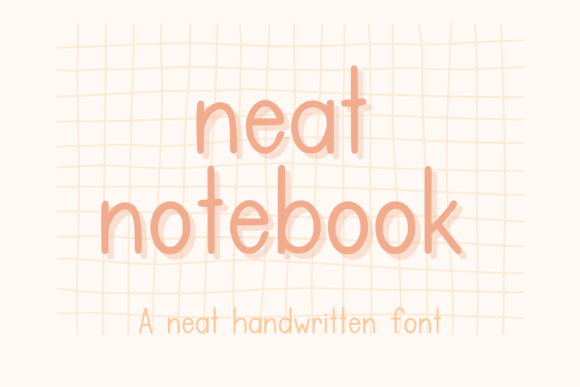
Introducing Neat Notebook: A Neat Handwritten Font for Cricut
Are you looking for a charming and cute addition to your creative projects? Look no further than Neat Notebook, a beautiful handwritten font designed specifically for Cricut users. This versatile font is compatible with a range of programs, including Cricut SVGs, Goodnotes, Procreate, and many more. In this article, we’ll explore the features and benefits of Neat Notebook, and how it can bring your creations to life.
Key Features of Neat Notebook Font
- Handwritten Style: Neat Notebook boasts a charming, handwritten aesthetic that’s perfect for a variety of creative projects.
- Endless Creative Possibilities: From crafting cards and scrapbooking to designing SVG files, Neat Notebook offers endless possibilities for your artistic endeavors.
5 Creative Ways to Use Neat Notebook Font
Neat Notebook is an incredibly versatile font that can be used in a variety of creative projects. Here are five ideas to get you started:
- Card Making: Add a personal touch to your greeting cards with Neat Notebook’s charming handwritten style.
- Scrapbooking: Use Neat Notebook to add journaling and titles to your scrapbook pages, creating a beautiful and cohesive look.
- SVG Design: Incorporate Neat Notebook into your SVG designs, such as custom signs, banners, and decals.
- Digital Planning: Use Neat Notebook in your digital planners and journals, created with Goodnotes or Procreate.
- Stationery Design: Create custom stationery, including letterheads, journals, and notebooks, with Neat Notebook’s elegant handwritten font.
The Benefits of Using Neat Notebook Font in Your Designs
So why choose Neat Notebook for your creative projects? Here are just a few benefits of using this charming font:
- Unique and Eye-Catching: Neat Notebook’s handwritten style adds a touch of personality to your designs, setting them apart from more generic fonts.
- Easy to Read: Despite its decorative nature, Neat Notebook is surprisingly easy to read, making it perfect for both digital and print projects.
- Customizable: With Neat Notebook, you can create custom designs that reflect your personal style and branding.
- Time-Saving: By using a pre-designed font, you can save time and effort in your design process, allowing you to focus on other creative aspects of your project.
Tips for Getting the Most Out of Neat Notebook Font
To help you get started with Neat Notebook, here are a few tips for getting the most out of this amazing font:
- Experiment with Different Sizes and Colors: Don’t be afraid to play around with different sizes and colors to find the perfect combination for your design.
- Pair with Other Fonts: Neat Notebook pairs beautifully with other fonts, so try combining it with a sans-serif font for added contrast.
- Use in Combination with Images: Neat Notebook looks great when paired with images, such as photos or illustrations, so don’t be afraid to get creative.
- Take Advantage of Ligatures and Swashes: Neat Notebook features beautiful ligatures and swashes, which can add an extra touch of elegance to your designs.